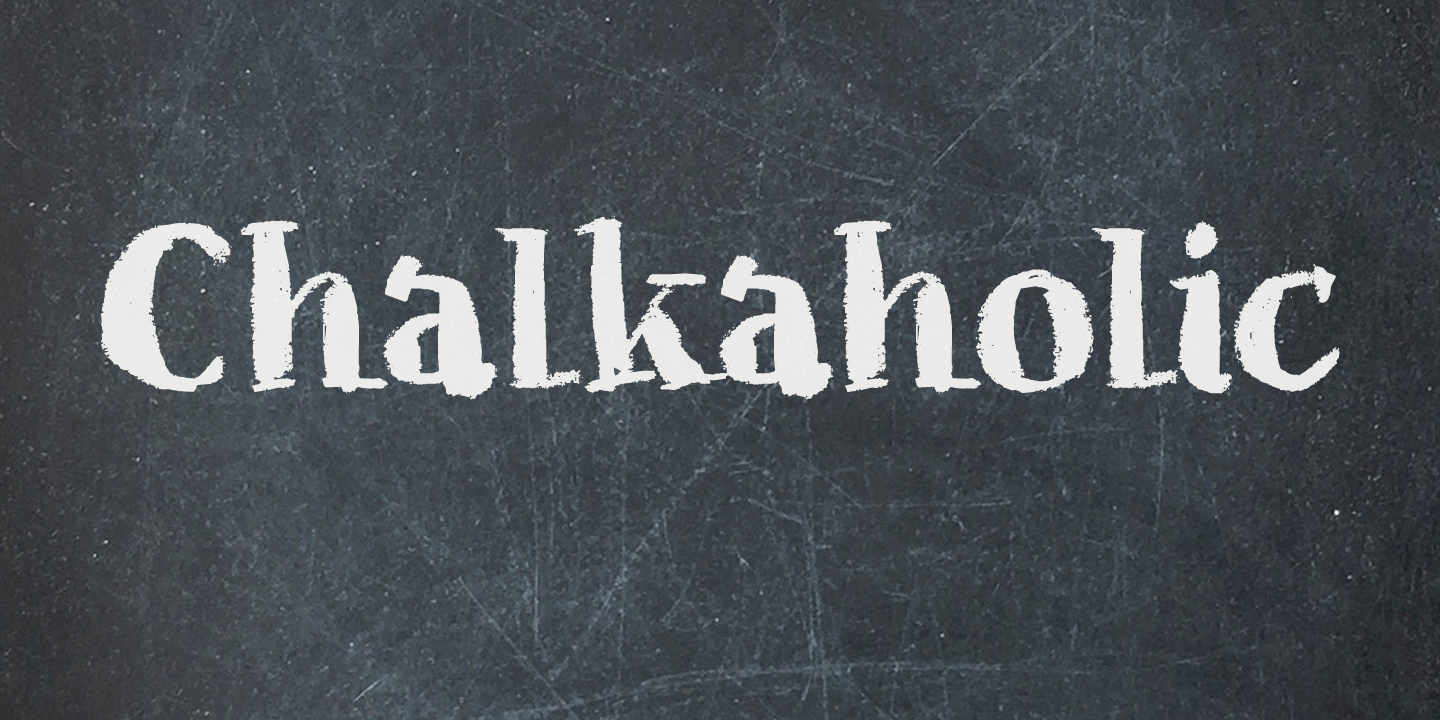
Chalkaholic Font is perfect for educational institution branding, cozy cafe menu boards, rustic restaurant signage, artisan bakery marketing, craft workshop materials, vintage-style classroom designs, handmade product packaging, and nostalgic teaching resources.
Chalkaholic Font is exciting because it captures the warm nostalgia and authentic charm of traditional chalkboard writing through its textured character design that embodies the familiar comfort of classroom memories and the handcrafted appeal of artisanal expression. Its chalky styling and educational appeal make it the perfect choice for brands that want to communicate authenticity, learning, and the timeless connection between knowledge and handwritten tradition.
Chalkaholic Font family includes multiple chalk-inspired variations: Chalkaholic Regular, Chalkaholic Bold, Chalkaholic Light, Chalkaholic Dusty, Chalkaholic Erased, and Chalkaholic Classic, along with educational decorative elements and chalk-style symbols, providing designers with comprehensive tools for creating authentic educational and artisanal-themed brand experiences.
When exploring educational typography solutions, Chalkaholic Font Free Download stands out as the ultimate choice for designers working on educational and artisanal projects that require genuine chalk sophistication and nostalgic appeal. This charming typeface embodies the essence of traditional learning while offering the versatility needed for modern educational marketing and artisanal brand communications. The font's chalky character and educational resonance create immediate connections with audiences who appreciate authentic learning experiences and handcrafted traditions.
Educational professionals consistently turn to Chalkaholic Font for projects requiring authentic educational sophistication and powerful nostalgic appeal. Its carefully crafted letterforms feature chalk-inspired influences that work exceptionally well in both large-scale educational institution displays and intimate cafe menu board applications. The font's ability to convey warmth and educational authenticity while maintaining strong brand recognition makes it invaluable for comprehensive identity systems in the education, artisanal food service, and handcrafted experience sectors.
Whether you're developing educational institution identities, creating artisanal cafe marketing materials, or designing nostalgic learning promotions, Chalkaholic Font delivers the authentic chalk character and educational appeal that resonates with audiences who cherish learning traditions and handcrafted authenticity. Its educational significance and chalky design ensure your projects capture the comforting familiarity of chalkboard memories while maintaining contemporary professional standards that attract modern educators and artisanal experience enthusiasts.